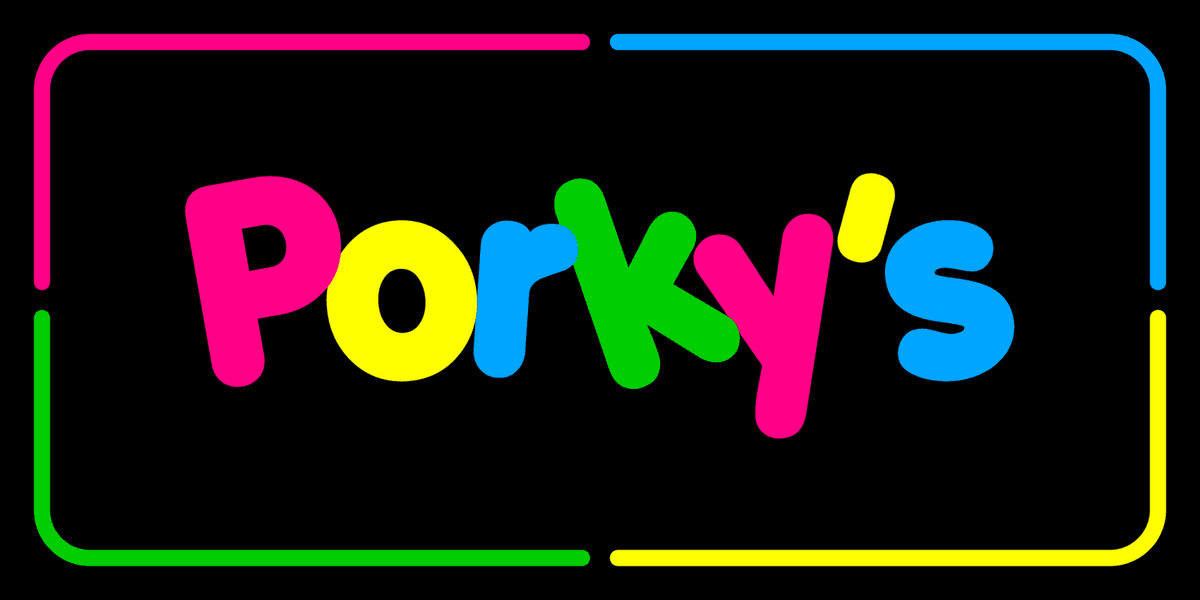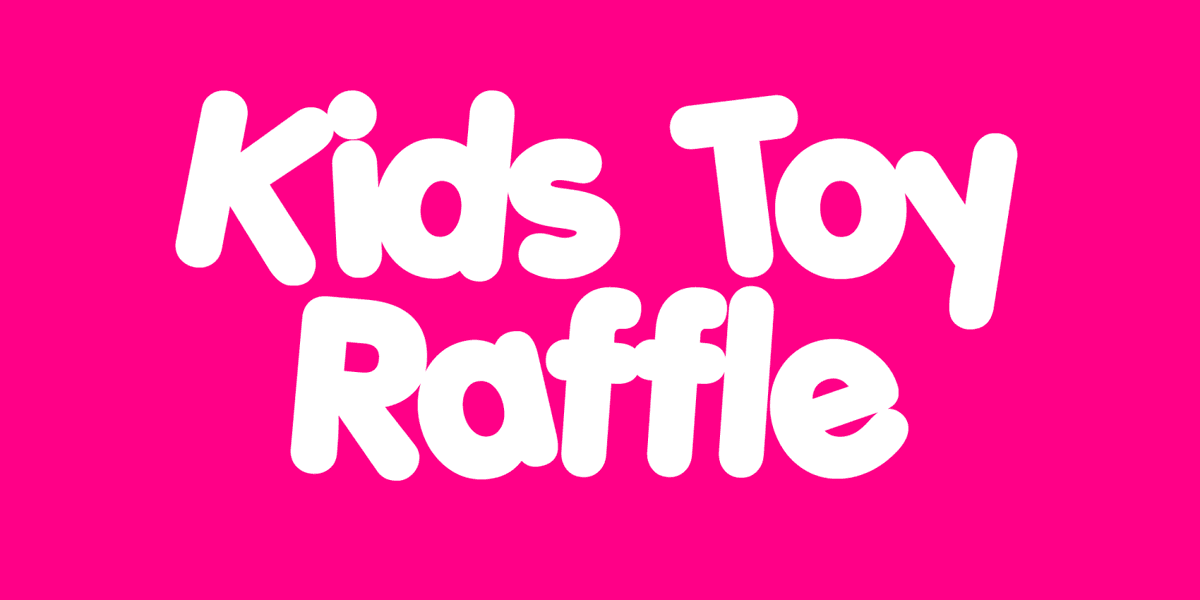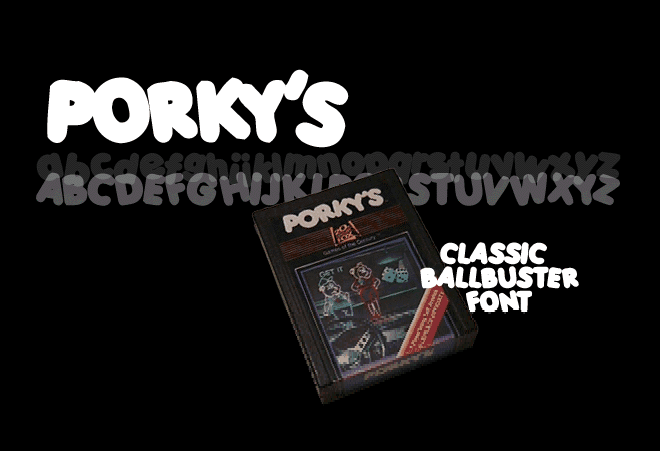
I made this font as a tribute to the classic 1980's film "Porky's". I used to watch this movie when I was in third grade with my buddies when my parents were asleep. I couldn't wait to get into high school and peek at the hot co-eds showering. If there is one thing that this film taught me it was this: Don't ever put your tongue in a hole when there is a girl with soap on the other side.